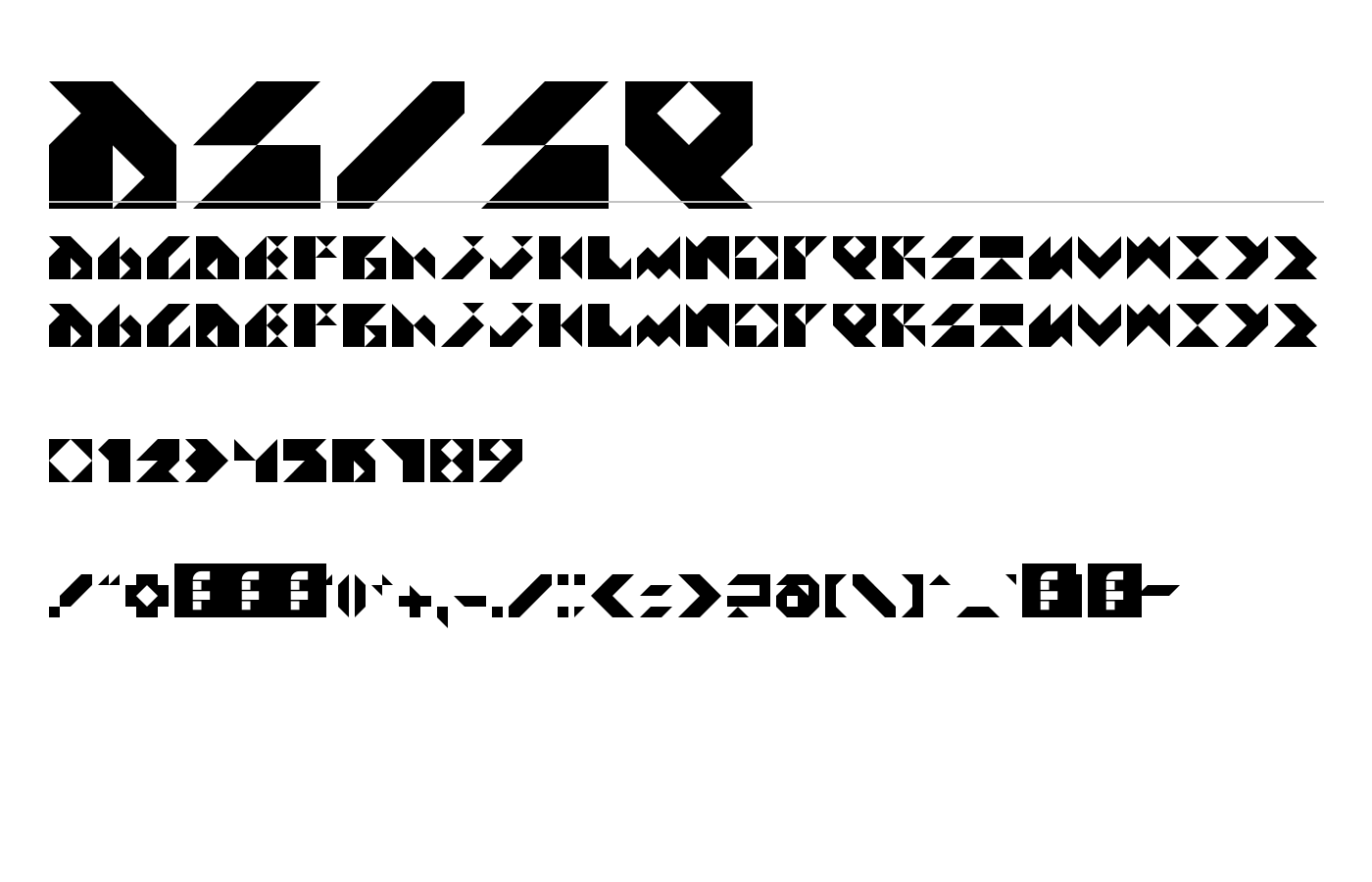
AS/SQ Font is a bold, geometric sans serif typeface characterized by its sharp, angular shapes and heavy weight. Its blocky, condensed letterforms give it a modern, edgy look with a unique, almost futuristic personality that makes it stand out. This font works best in striking headlines, logos, and posters where a strong visual impact is desired.
AS/SQ Font
About AS/SQ Font
| Font family | AS/SQ Font |
| Designer | Artem1989 |